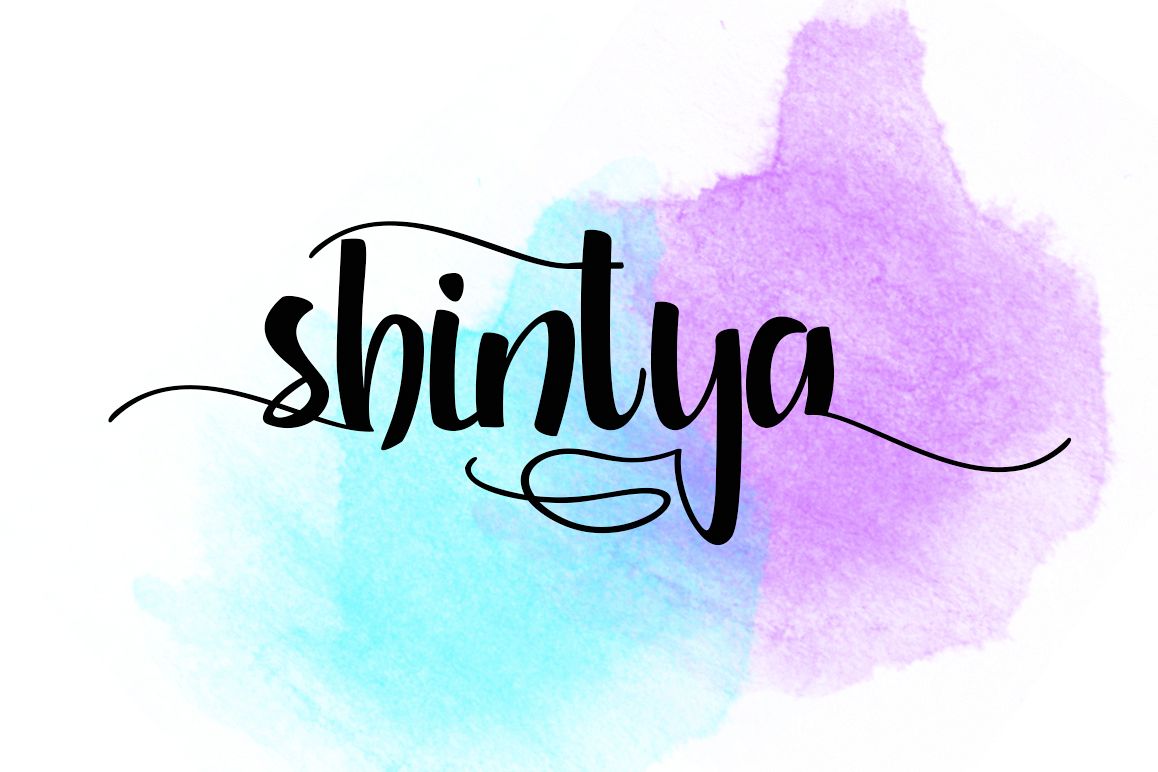
Shintya
shintya.
when a love translated to a typeface, is a time when shintya was born. A really soft curved typeface made with love, full of feelings. its take some time to finish this shintya typeface. But, here it is. shintya was born to fullfill your need, for your brand, your logo, suited for fashion, good looking to invitations letter.